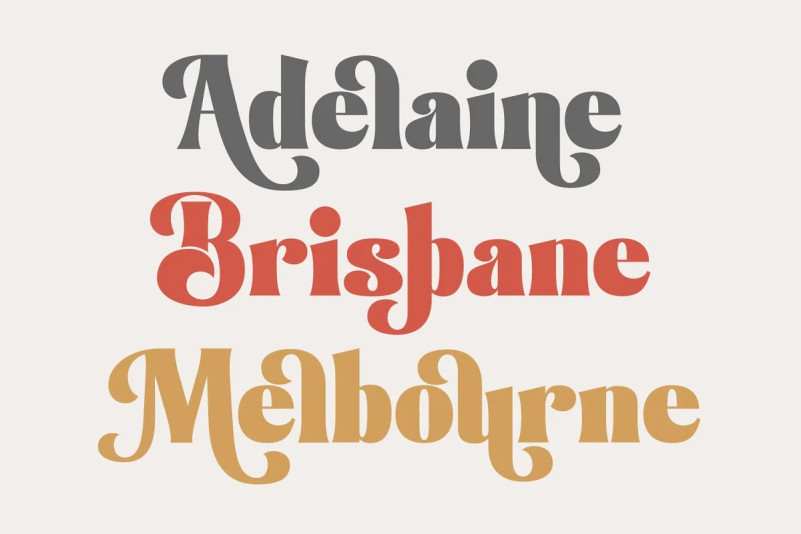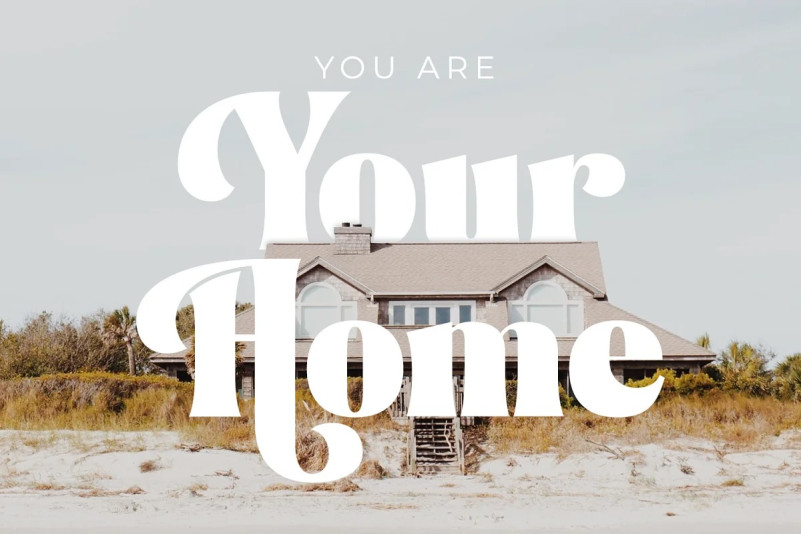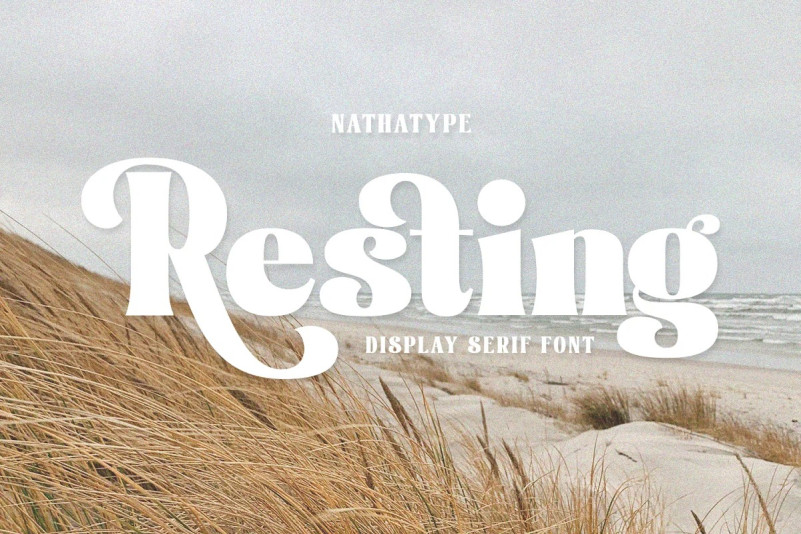
Resting Font
Resting Serif Font is a perfect display serif font for any of your design projects. Serif font is a font type with sticky small lines on the letters’ edges expressing formal, classic nuances and more aesthetic, creative touches due to the display font combinations. This display font has thick, high contrast lines perfect for catching attention and creating firm impressions. In addition, use this font for big text sizes for a legibility reason and make use of the other interesting features to beautify your designs.